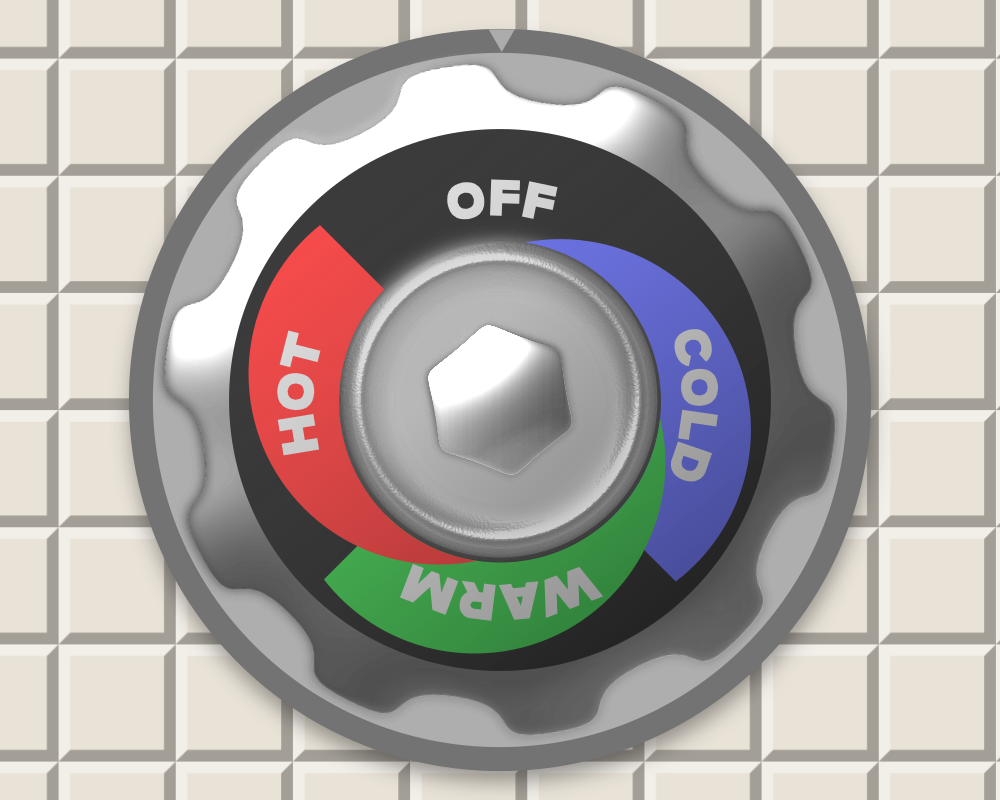
• THIS IS INSPIRED BY THE IMPOSING SIGNAGE OFTEN SEEN IN POST SOVIET COUNTRIES, AS IT HAS BEEN SINCE ITS INCEPTION AS СПАСТИ.
DIFFERENCES FROM ALDRON
• MANY MORE CHARACTERS!!!!!!!!!!!!!
• MUCH MORE KERNING!!!!!!!!!!!!!
• A NORMAL A!!!!!!!!!!!!!
• A NORMAL K!!!!!!!!!!!!!
• A WIDER S!!!!!!!!!!!!!
• A WIDER Ф!!!!!!!!!!!!!
• AN UNSYMMETRICAL Y!!!!!!!!!!!!!
• A LOWER SERIF ON 1!!!!!!!!!!!!!
• AN UPPER SERIF ON J!!!!!!!!!!!!!
You finally got your wish. You asked for an ‹Ñ› in this font 6 years ago, and it’s finally here!
still missing c with cedilla